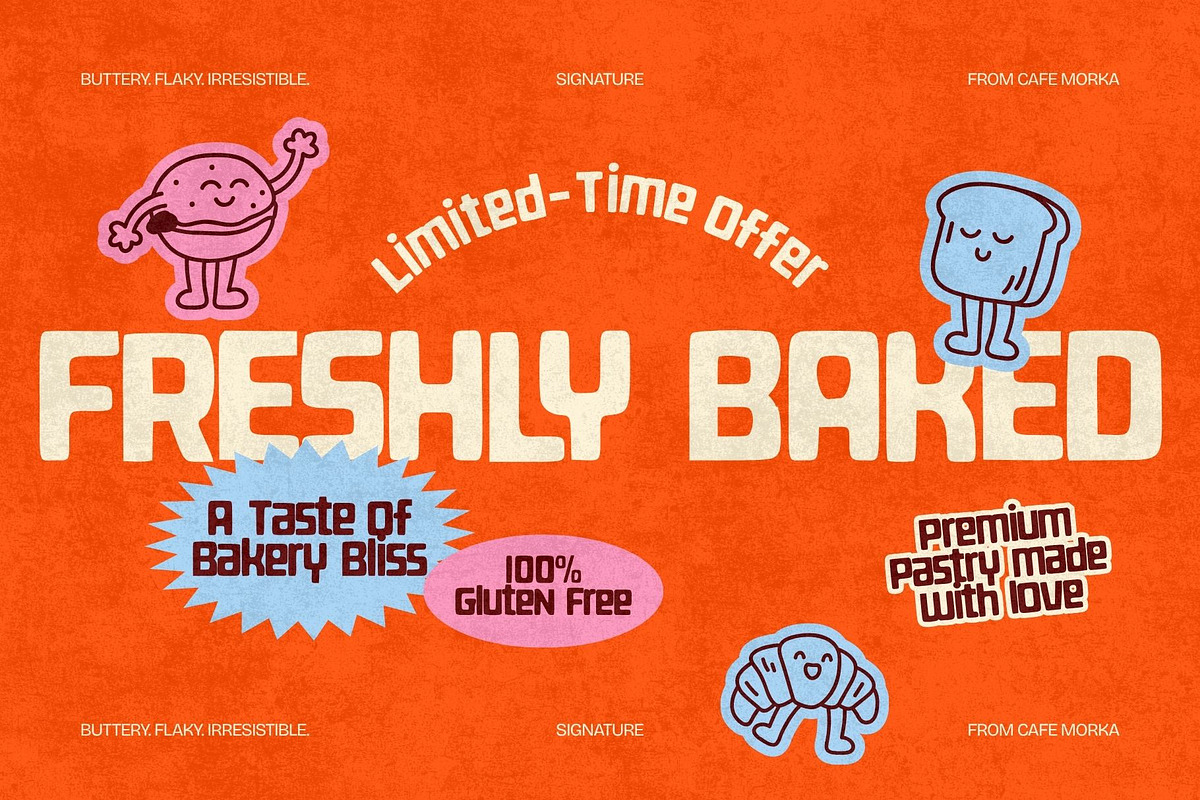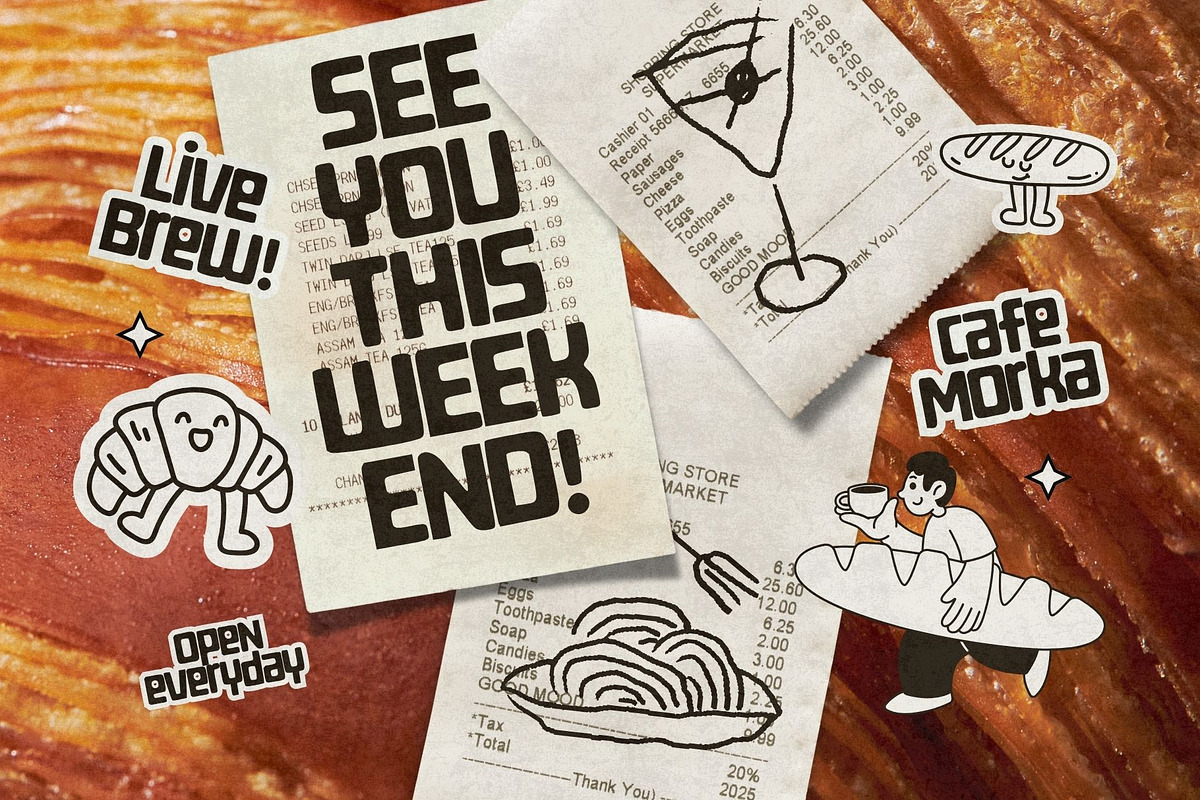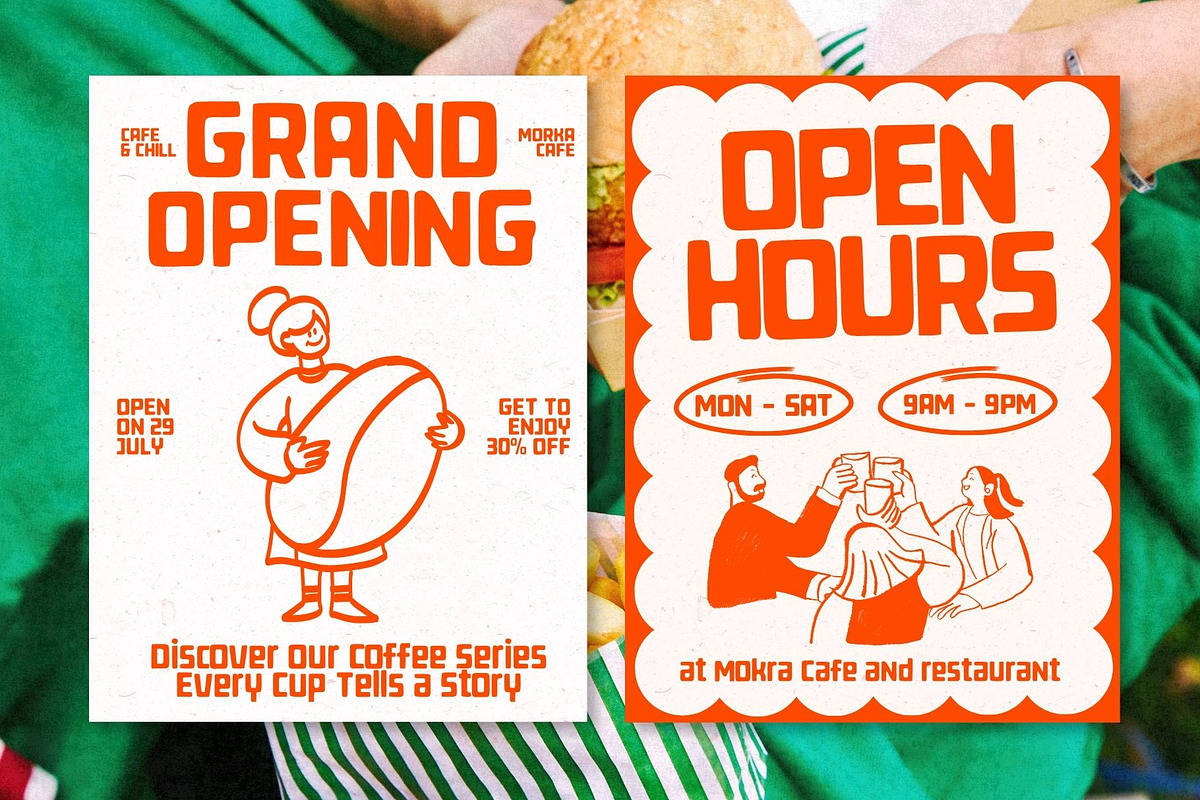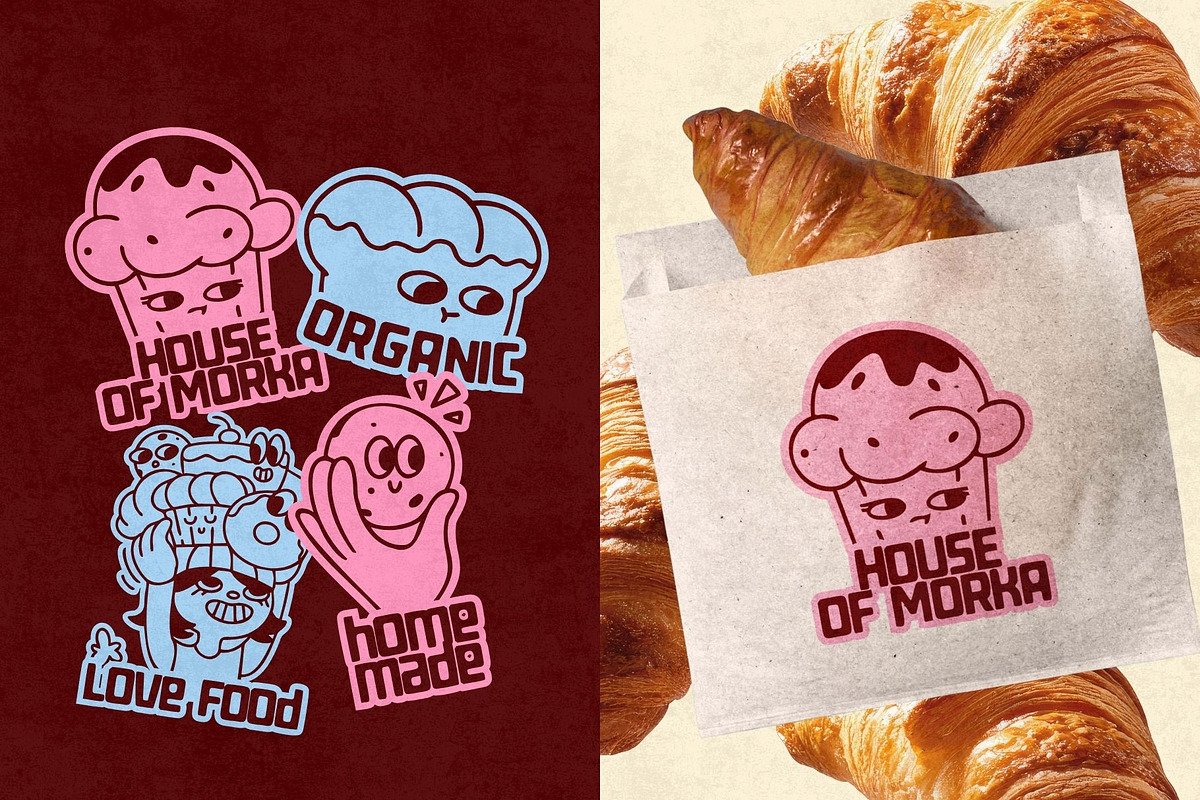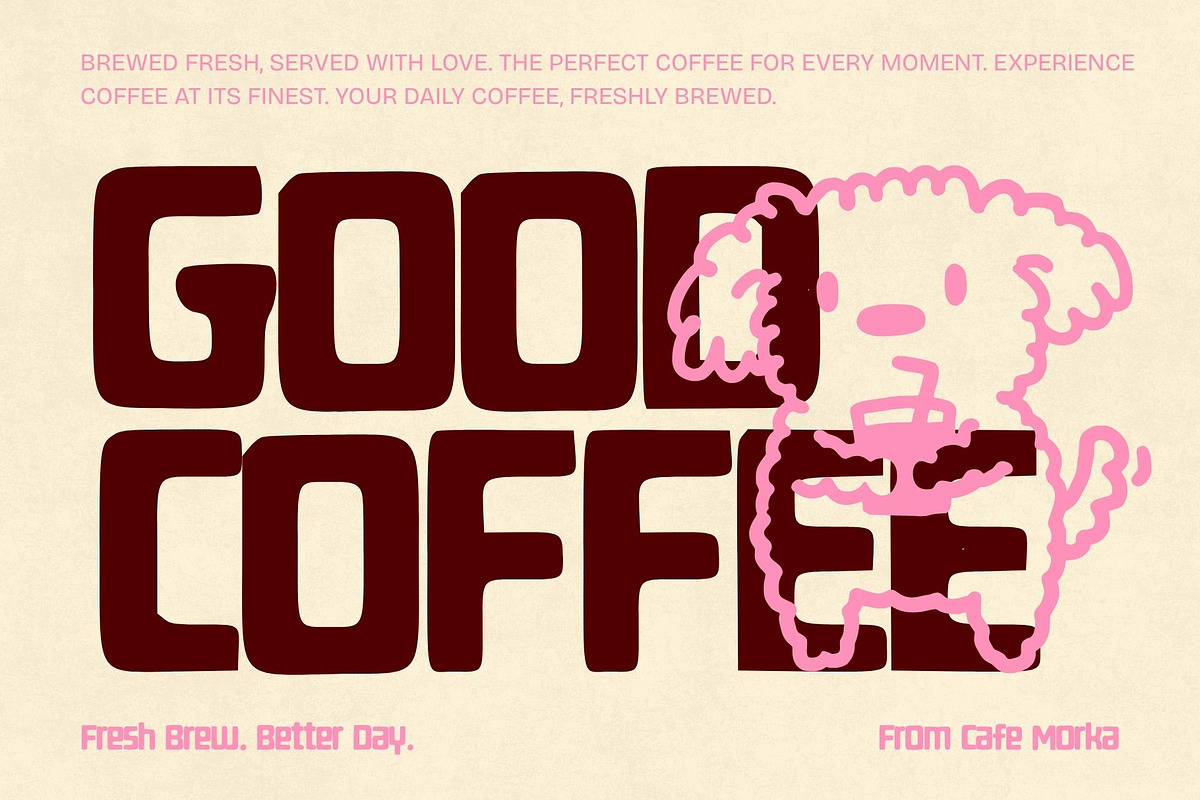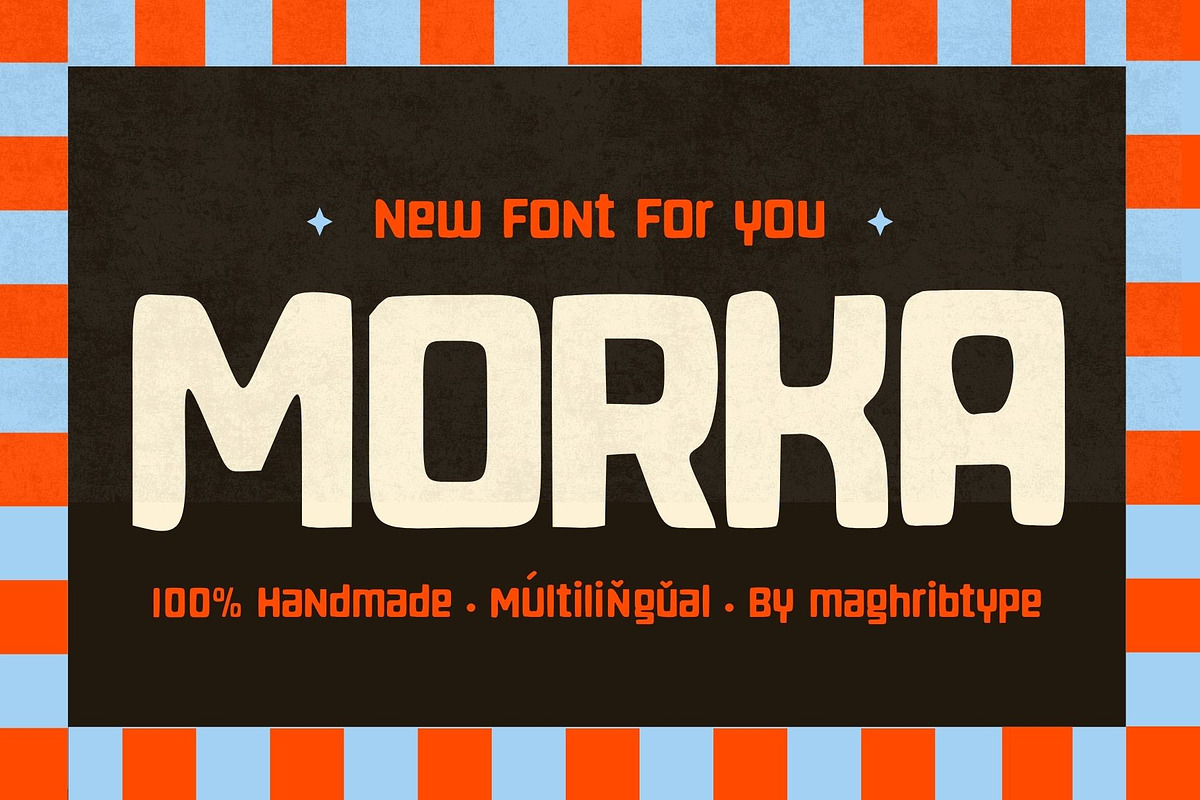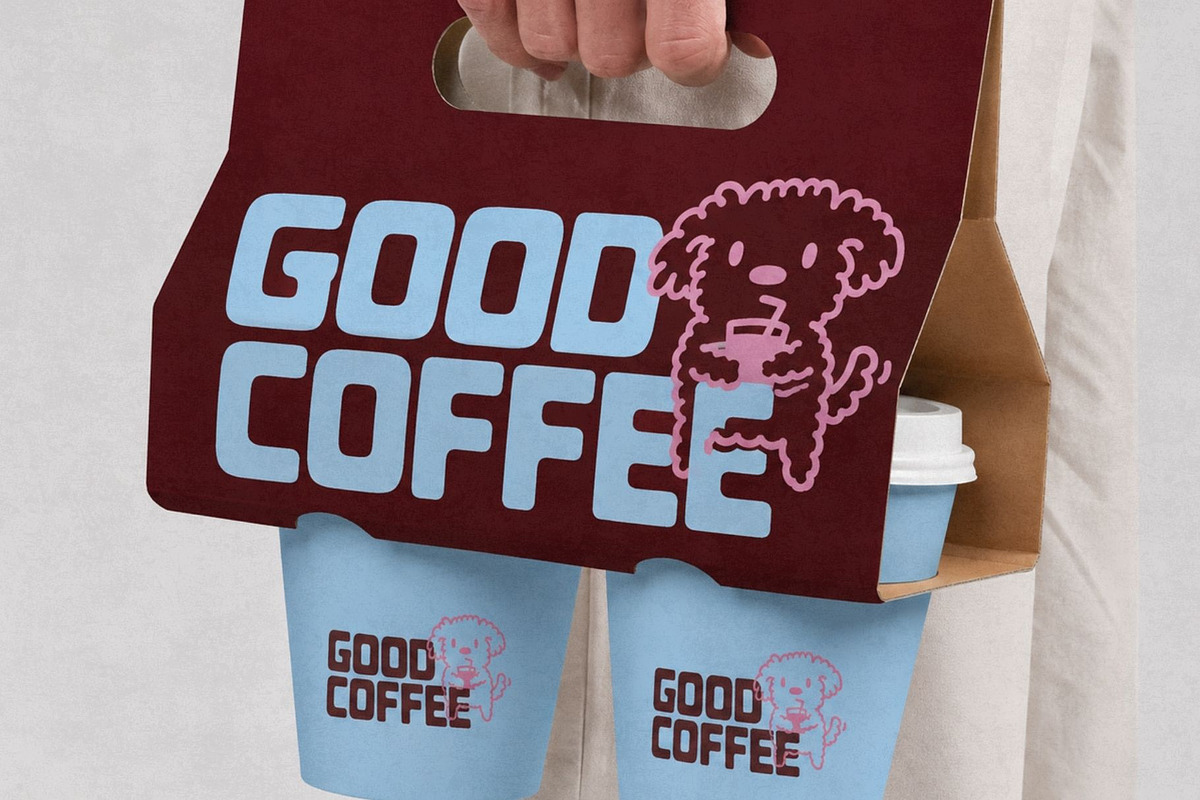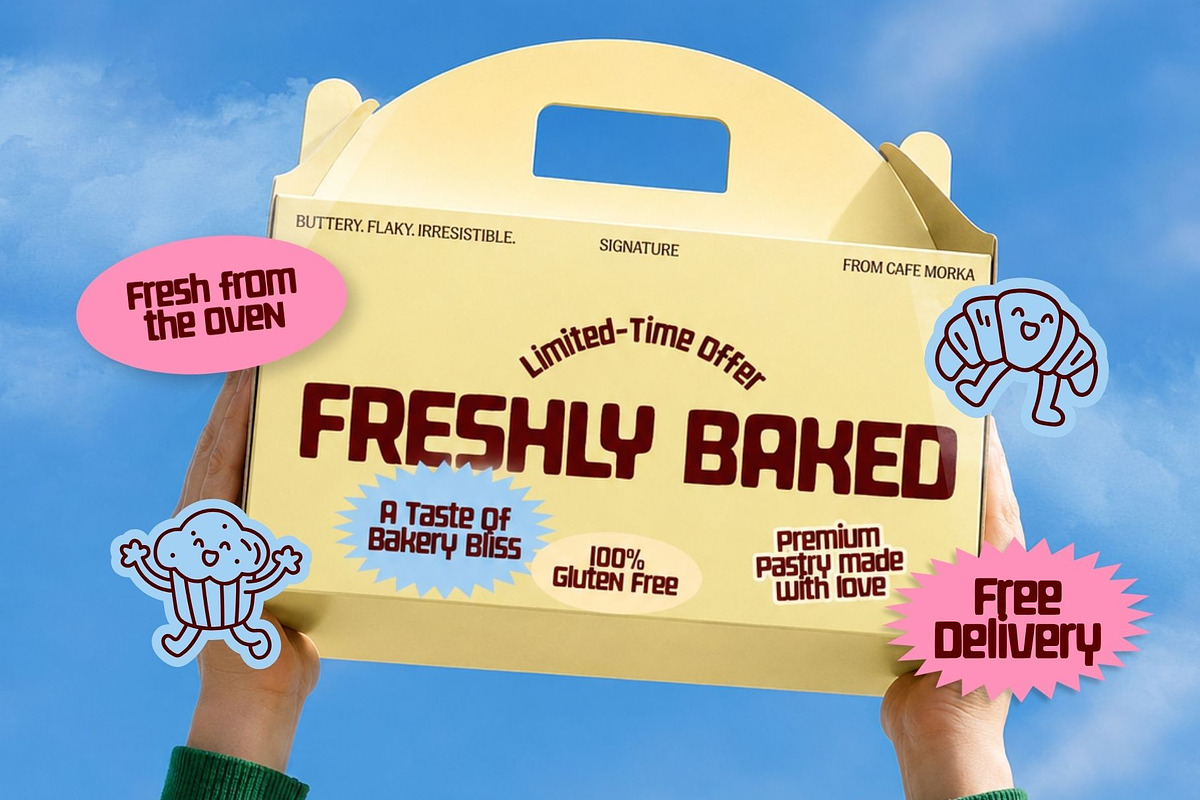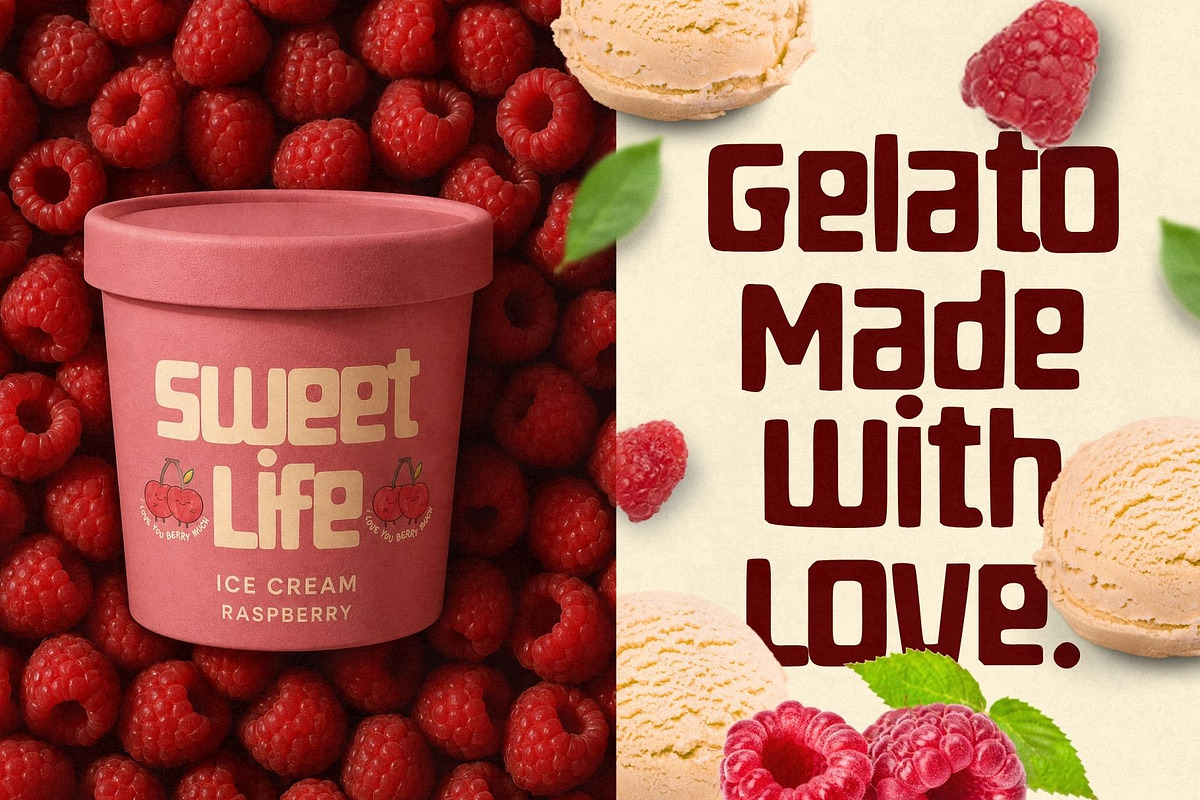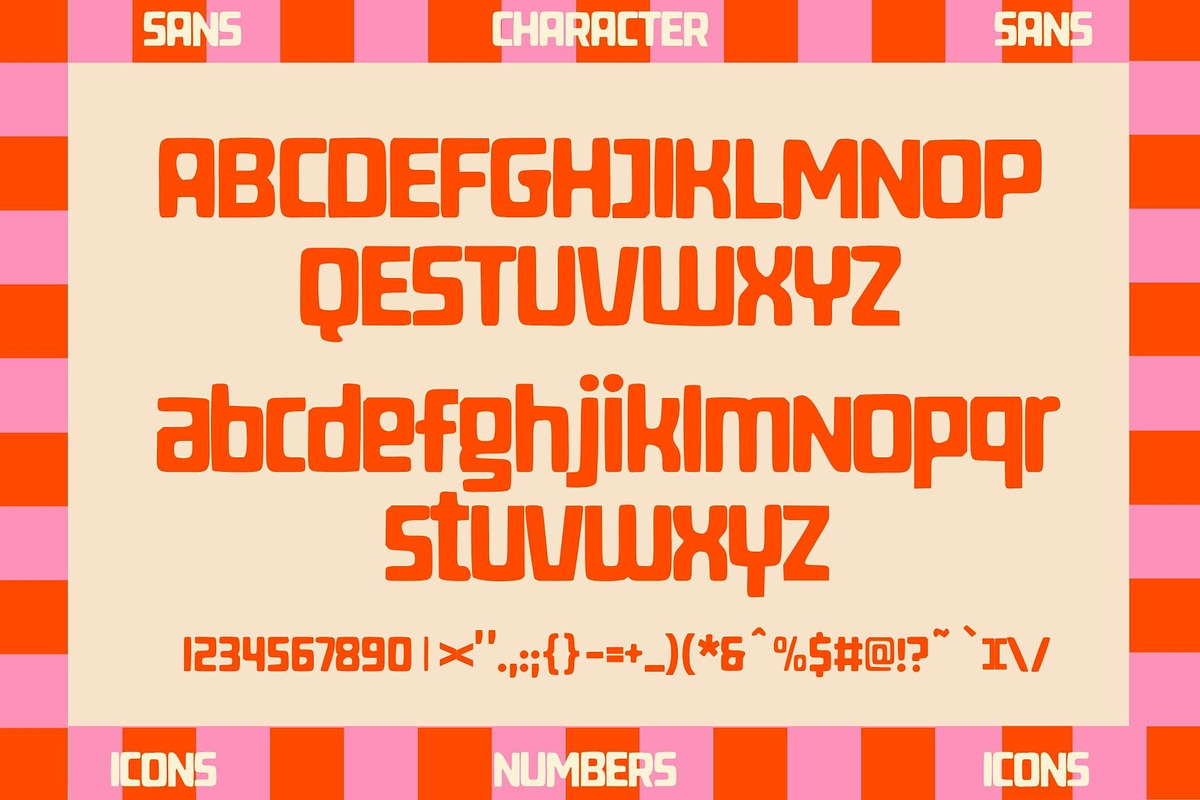
Morka
Morka — Bold & Playful Sans Serif Font
Morka is a bold and playful sans serif font designed to bring personality, warmth, and character to your typography. With its chunky proportions, rounded corners, soft curves, and handmade feel, Morka creates a friendly visual presence while maintaining strong readability.
Its distinctive letterforms make Morka especially suitable for branding, logos, packaging, posters, social media, headlines, editorial layouts, café and food branding, merchandise, and creative advertising.
Morka works beautifully when you need typography that feels bold but friendly, expressive but clean, and playful without losing its visual impact.
From café signs and food packaging to lifestyle brands and creative campaigns, Morka is made to stand out.
Brand Identity
Wordmarks
Packaging
Food & Beverage Branding
Café & Restaurant Branding
Bakery Branding
Poster Design
Editorial Design
Social Media
Advertising
Headlines
Display Typography
Stickers
Labels
Signage
T-Shirts
Editorial Graphics
Creative Campaigns
Short Body Copy
Morka brings a bold, cheerful, and handmade personality to your design — making every word feel more memorable.